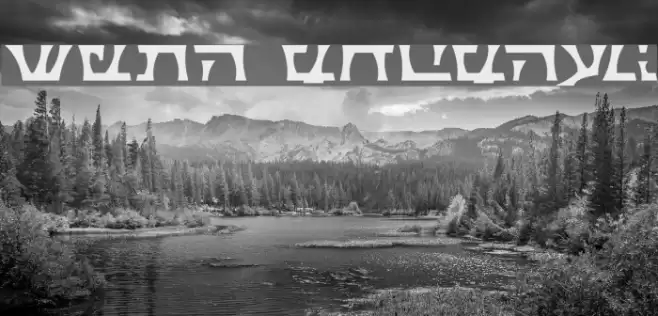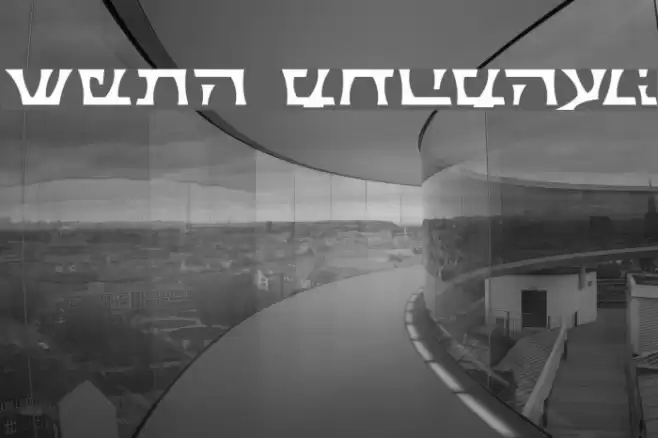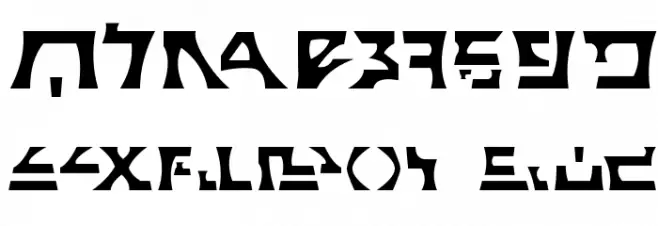
Sith Prophecy Font
Sith Prophecy Description
This font features a unique, angular design with sharp edges and a futuristic appearance. The characters are bold and striking, with a geometric style that conveys a sense of mystery and intrigue. The uppercase and lowercase letters maintain a consistent style, with each character exhibiting a distinct, almost alien-like form. The numbers and special characters are equally stylized, fitting seamlessly into the overall aesthetic. This font is perfect for projects that require a bold, unconventional look, such as science fiction themes or fantasy settings.
A bold, angular font with a futuristic and mysterious design from Uncategorized fonts.
- Proposed Projects: Ideal for sci-fi themed projects, fantasy games, movie posters, or any creative work requiring a distinctive, otherworldly typeface.
- Overall Style: Futuristic, Mysterious